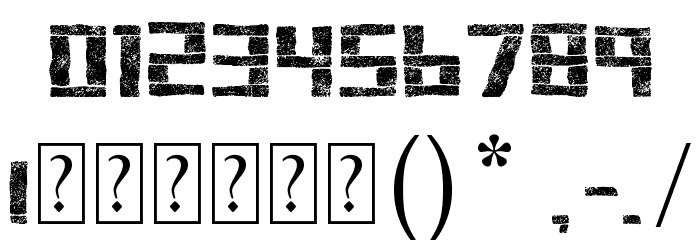
stonehenge Font
This font exhibits a rugged, textured appearance reminiscent of ancient stone carvings. The characters are bold and blocky, with a distressed effect that gives them a weathered look. Each letter and number appears as if it has been chiseled from rock, with uneven edges and a rough surface texture. The uppercase letters are particularly striking, with a strong presence that commands attention. The numerals and special characters maintain this same aesthetic, ensuring a cohesive look across all glyphs. This font is ideal for designs that require a bold, impactful statement with a touch of historical or natural elements.
A rugged, textured font with a stone-carved appearance.
- Proposed Projects: Ideal for archaeological themes, historical documentaries, outdoor adventure branding, or rustic event invitations.